Celebrate the joy of spring with Easter fonts that bring seasonal magic to life. Whether you’re designing printable cards, festive signage, party invitations, or egg hunt tags – the right font can make your project feel sweet, fresh, and perfectly themed.
From soft calligraphy to playful display styles, explore our curated Easter font collections below to match your creative vibe.
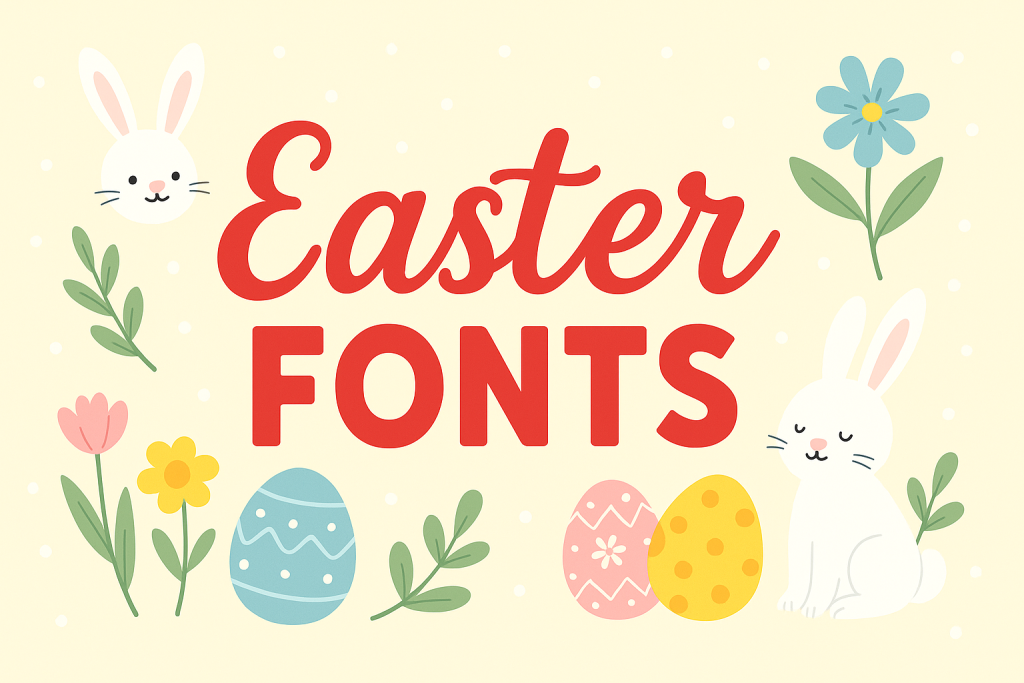
Best Easter Font Styles (What Works & Why)
Soft Script / Calligraphy
Perfect for Easter greetings, spring quotes, or delicate overlays. Elegant strokes and gentle flourishes add a touch of grace.
- Easter script → soft, flowing handwriting
- Pastel calligraphy → light color blends, gentle swashes
- Spring cursive → subtle flair, great for names and headers
- Bunny swash → decorative alternates with Easter motifs
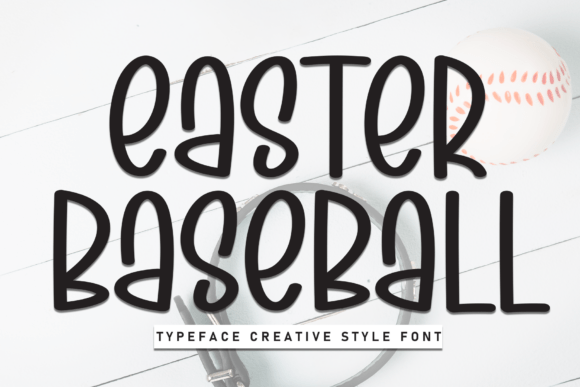
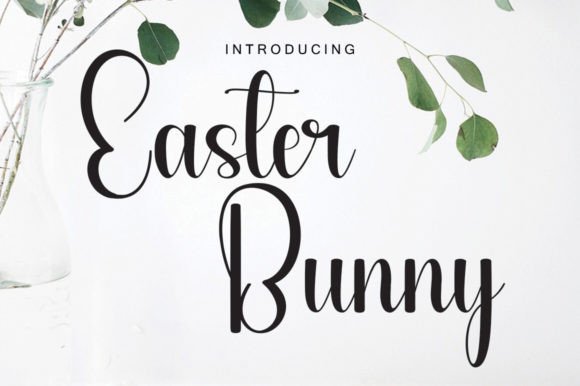
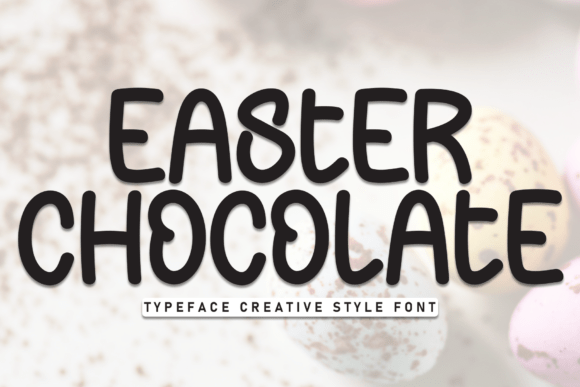
Serif & Classic Spring
A timeless choice for Easter cards, printables, and formal materials. Serif fonts bring structure and tradition.
- Easter serif → soft slab or vintage details
- Spring serif → crisp contrast with gentle edges
- Elegant serif → refined look for menus, programs, signage
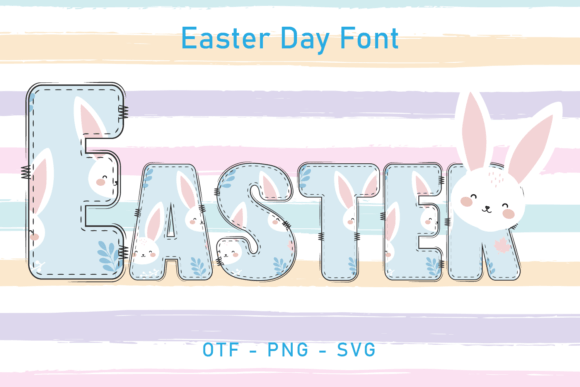
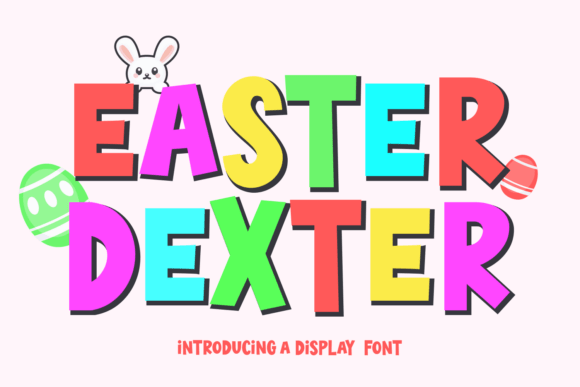
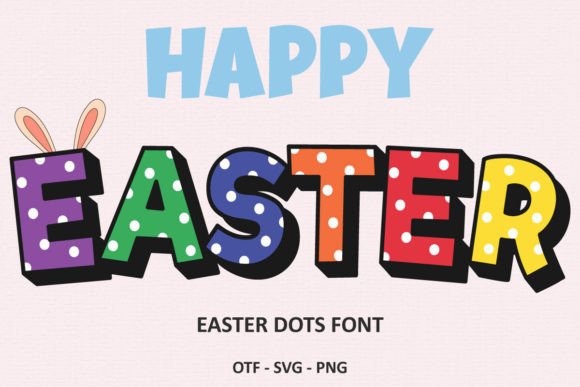
Playful & Kids-Friendly
Add charm and energy with fonts full of character – ideal for kids’ crafts, Easter baskets, or candy tags.
- Easter cartoon → fun shapes with eggs, bunnies, chicks
- Whimsical display → quirky, bouncy letterforms
- Bold Easter fonts → strong readability for print or stickers
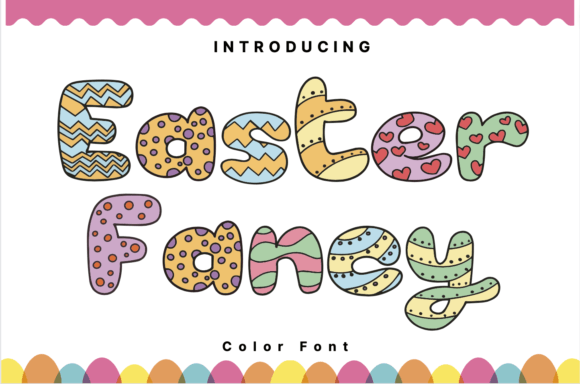
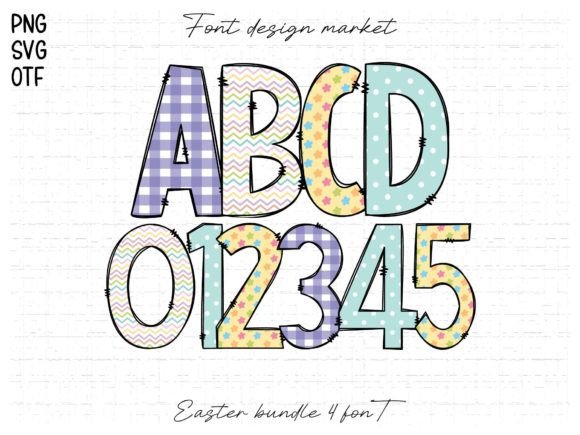
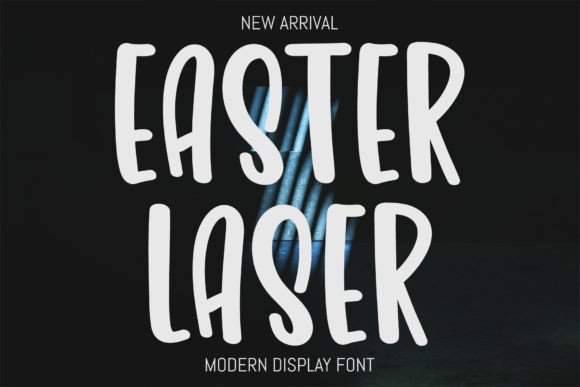
Modern / Minimal Easter
For a fresh, stylish look – think thin lines, clean structure, and soft palettes. Ideal for chic branding, minimalist cards, or digital templates.
- Minimal Easter → simple and sophisticated
- Scandinavian spring → natural shapes, balanced proportions
- Pastel modern → light-colored modern sans styles
Easter Font Pairing Recipes (Copy & Paste)
Use these quick pairings to keep your layouts cohesive and beautiful:
- Calligraphy + Light serif – graceful header + structured body
- Playful display + Neutral sans – cute and fun without clutter
- Serif + Tabular numbers – great for dates, times, event listings
- Minimal sans + Subtle swashes – clean with seasonal flair
Easter Project Ideas
Wondering where to use these fonts? Try:
- Printable Easter cards & notes
- Candy wrappers & treat tags
- Classroom worksheets & coloring pages
- Egg hunt signage & scavenger lists
- Party invitations & table menus
- Tote bags, mugs, and T-shirt designs
- Instagram quotes & digital stickers
Color Tips for Easter Designs
- Stick to pastels: lavender, blush pink, mint, butter yellow
- Add white space for clarity and lightness
- Try multicolor initials or gradient letters for a modern twist
- Use decorative icons – eggs, carrots, florals as text accents
FAQ
Calligraphy and script fonts with soft curves work beautifully. Look for flourishes and pastel color palettes.
Try a cute cartoon display font with a clean sans serif underneath – balanced and readable.